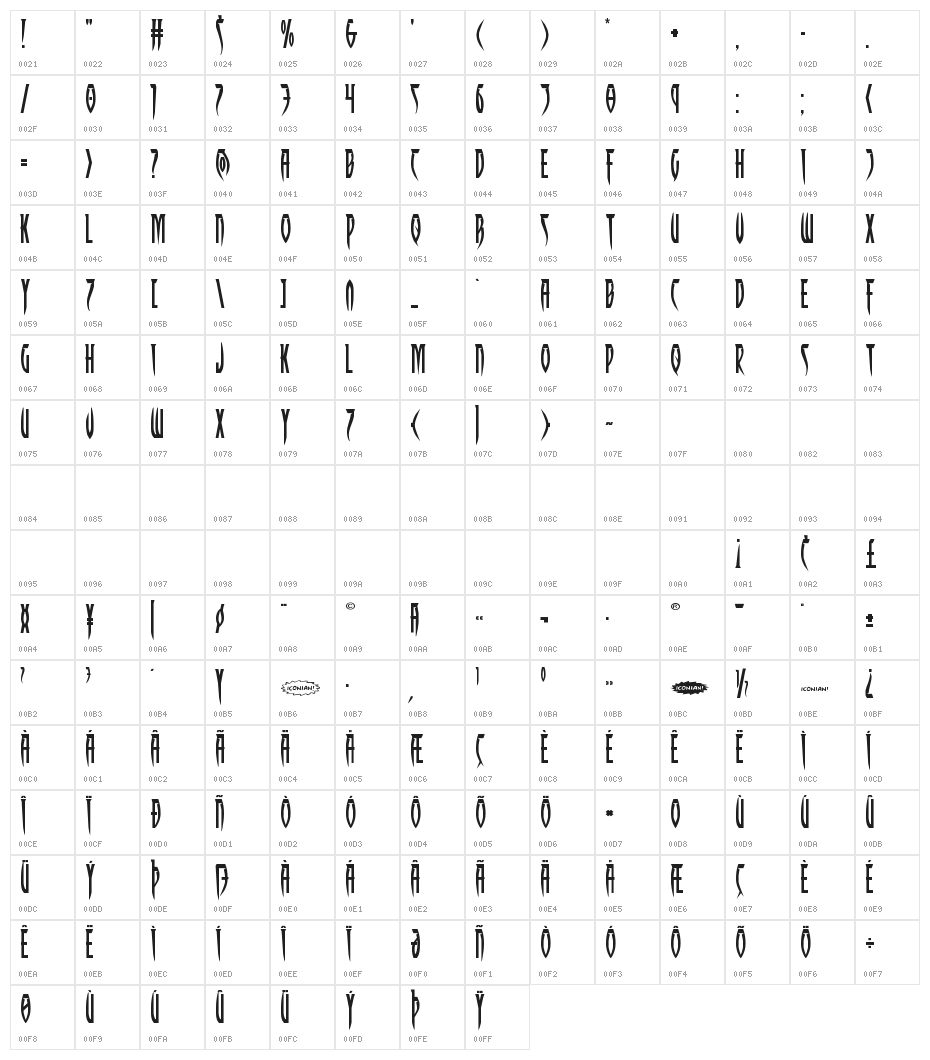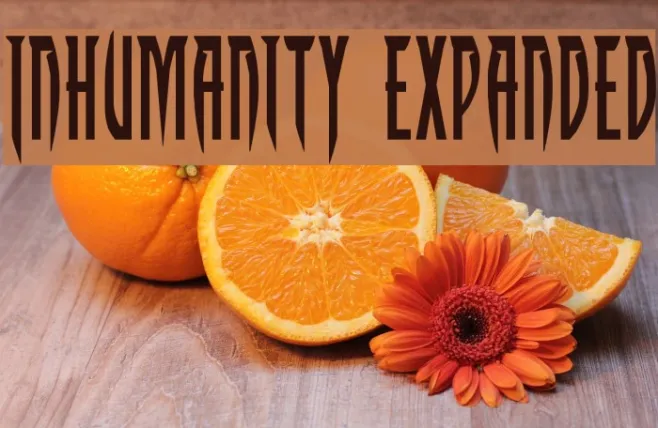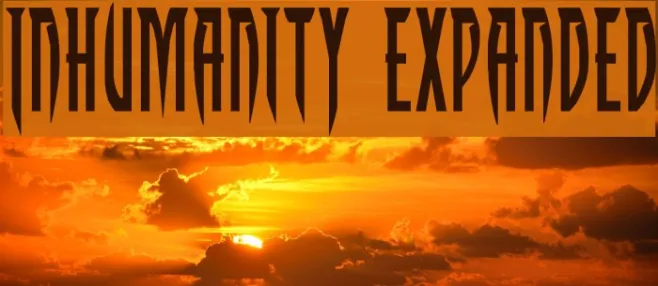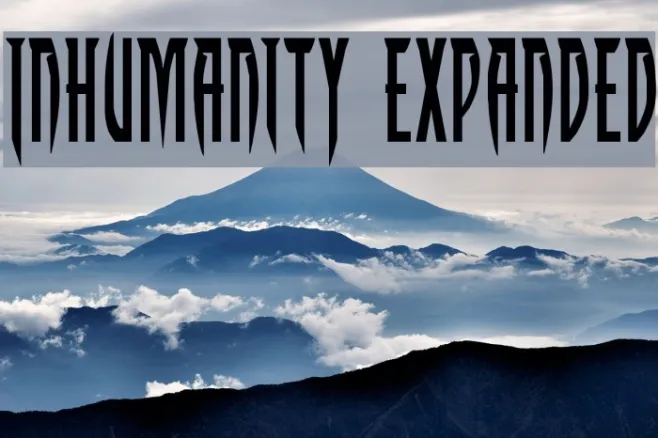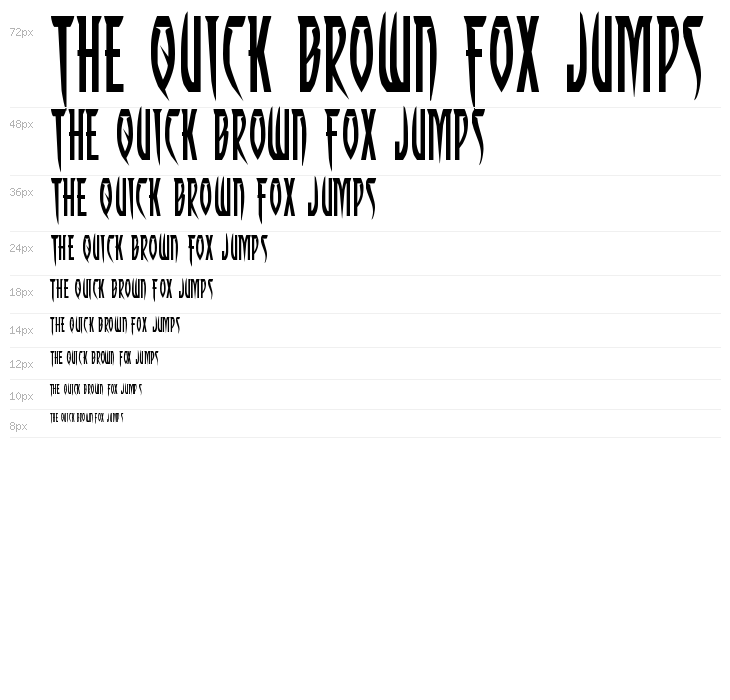
Inhumanity Expanded Font
Inhumanity Expanded Description
This font features a bold and dramatic style with elongated, sharp serifs and a distinctively angular design. The characters are tall and narrow, creating a striking and imposing appearance. The uppercase letters are particularly prominent, with exaggerated vertical strokes and minimal horizontal elements, giving them a unique, almost gothic flair. The lowercase letters maintain the same angular aesthetic, ensuring consistency throughout the typeface. Numbers and special characters are designed to match the overall style, with similar sharp angles and bold lines. This font's unique design makes it stand out, perfect for projects that require a strong visual impact.
| Overall Style | Gothic, Dramatic |
| Proposed Projects | Ideal for movie posters, album covers, video game titles, and branding that requires a bold, dramatic impact. |